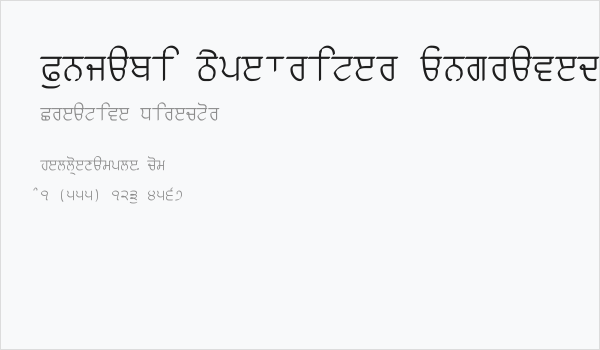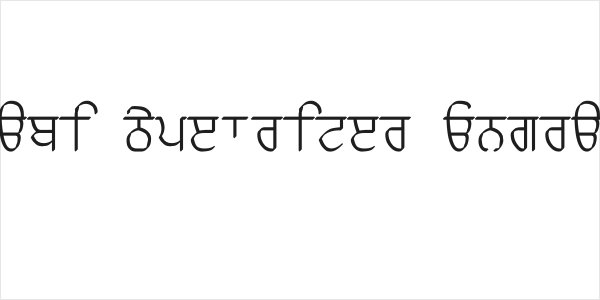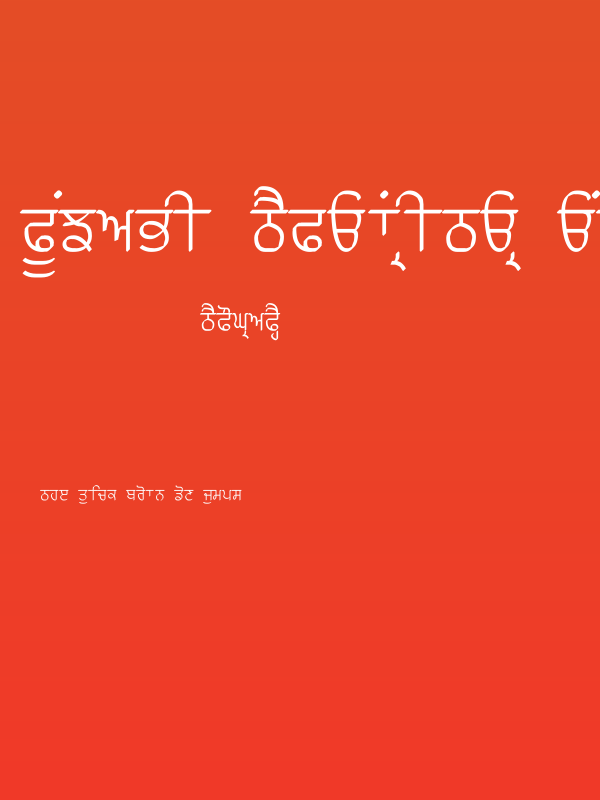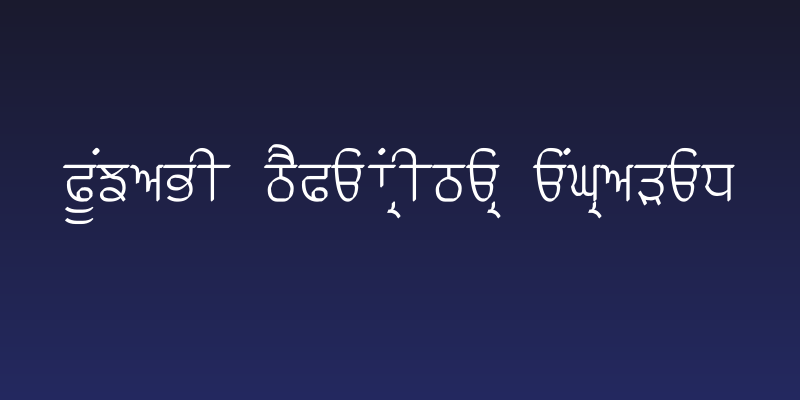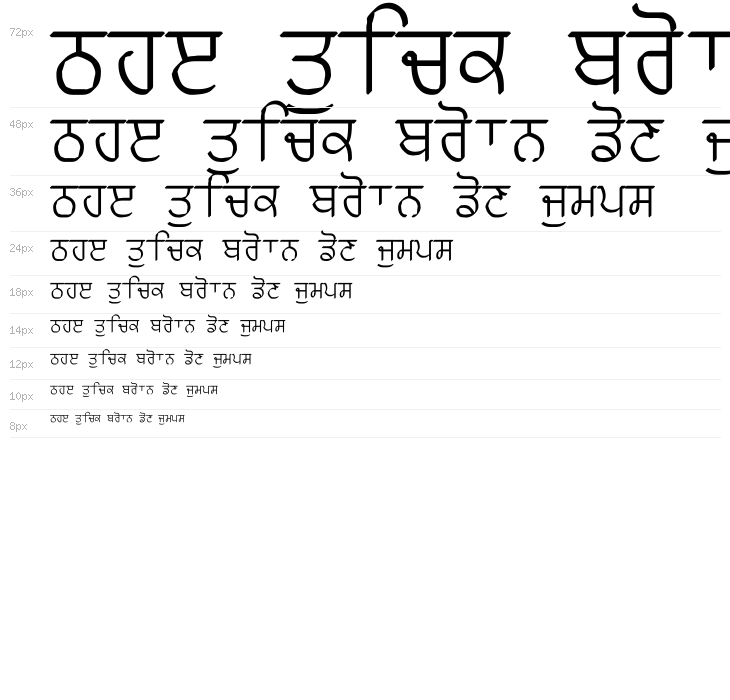
Punjabi Typewriter Engraved Font
Punjabi Typewriter Engraved Description
This font features a traditional Punjabi script with a typewriter-style engraving. The characters are bold and clear, with distinct, sharp edges that give it a classic yet functional appearance. The strokes are consistent in thickness, providing a uniform look across all characters. The spacing between characters is moderate, ensuring readability while maintaining the aesthetic of a typewriter font. The numerals and special characters are well-integrated, matching the style of the script letters. This font is ideal for projects requiring a cultural touch or a vintage typewriter feel.
| Use Case | Headlines, Cultural projects, Decorative purposes |
| Proposed Projects | Ideal for cultural publications, vintage-themed designs, or projects needing a traditional Punjabi touch. |